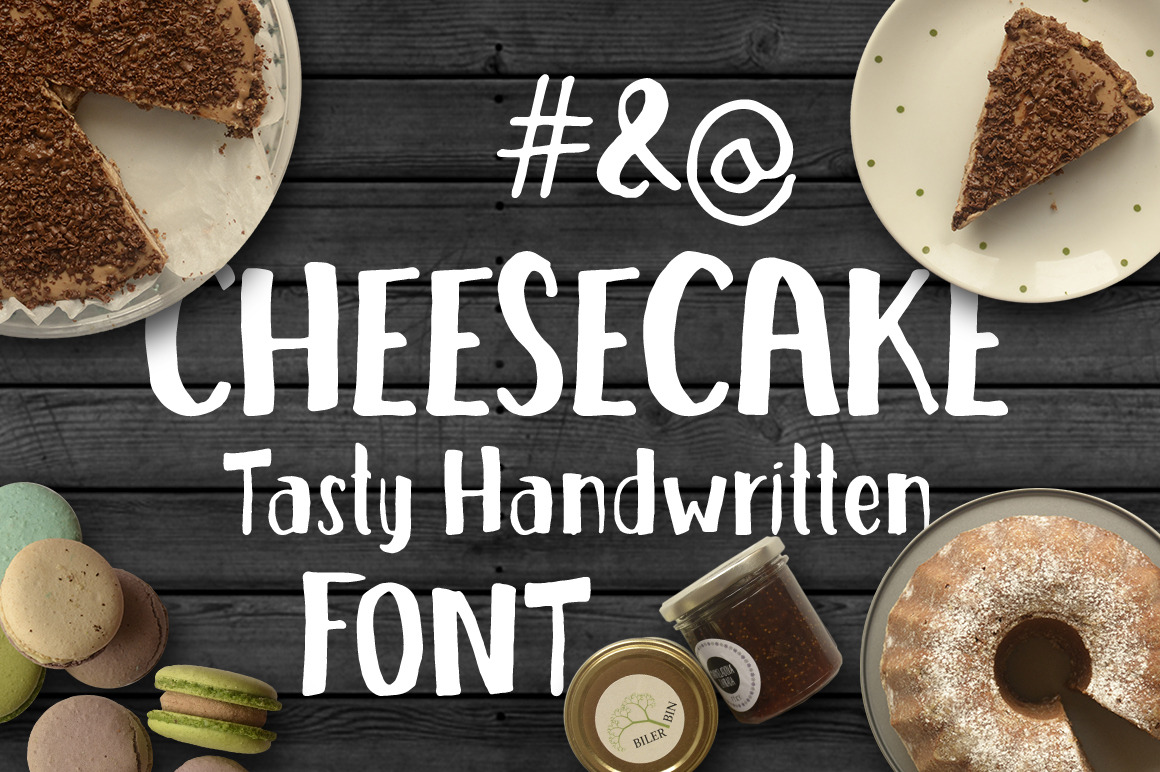
Cheesecake - Tasty Handwritten Font
Let introduce the tastiest font ever made - Crunchy & jummy at the same time. Completely handwritten from scratch with care of every single detail. Kerned with love. So, why stand aside, when you can have a piece of fresh made cheesecake!
Lowercase, uppercase and all basic English characters inside!
Eight pieces of cheesecake has been eaten while creating this. No alternates or foreign alphabets supported at this time ( Include only characters displayed on last image)